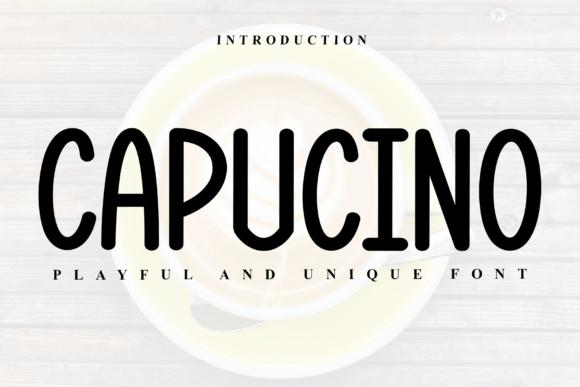
Introducing Capucino Font: The Perfect Holiday Companion
As the holiday season approaches, designers and crafty enthusiasts alike are on the lookout for the perfect font to capture the joy and warmth of this special time of year. Look no further than Capucino Font, a playful and cheerful handwritten sans-serif font that’s sure to bring a smile to everyone’s face. With its rounded strokes and casual, friendly style, Capucino Font is the ideal choice for Christmas cards, festive invitations, kids’ projects, and seasonal branding.
The Charm of Capucino Font
Capucino Font is more than just a font – it’s an experience. Its whimsical and inviting style is designed to evoke the feeling of a warm hug on a cold winter’s day. The rounded strokes and soft edges of each letter give the font a friendly and approachable feel, making it perfect for designs that need to convey a sense of joy and festivity.
Whether you’re designing a Christmas card, a holiday invitation, or a festive advertisement, Capucino Font is the perfect choice. Its playful and cheerful style is sure to capture the attention of your audience and leave a lasting impression. Plus, with its handwritten charm, Capucino Font adds a personal touch to your designs that feels both authentic and inviting.
Perfect for Holiday Designs
Capucino Font is specifically designed with the holiday season in mind. Its festive and fun style is perfect for a wide range of holiday designs, including:
- Christmas cards and invitations
- Festive advertisements and marketing materials
- Kids’ projects and educational resources
- Seasonal branding and packaging
- Holiday party invitations and decorations
With Capucino Font, you can create designs that are both festive and fun, and that will leave a lasting impression on your audience.
Key Features of Capucino Font
So what makes Capucino Font so special? Here are just a few of its key features:
- Playful and cheerful handwritten style
- Rounded strokes and soft edges for a friendly feel
- Casual and approachable style perfect for holiday designs
- Whimsical and inviting style that’s sure to capture attention
- Handwritten charm that adds a personal touch to your designs
With these features, Capucino Font is the perfect choice for designers who want to create holiday designs that are both festive and fun.